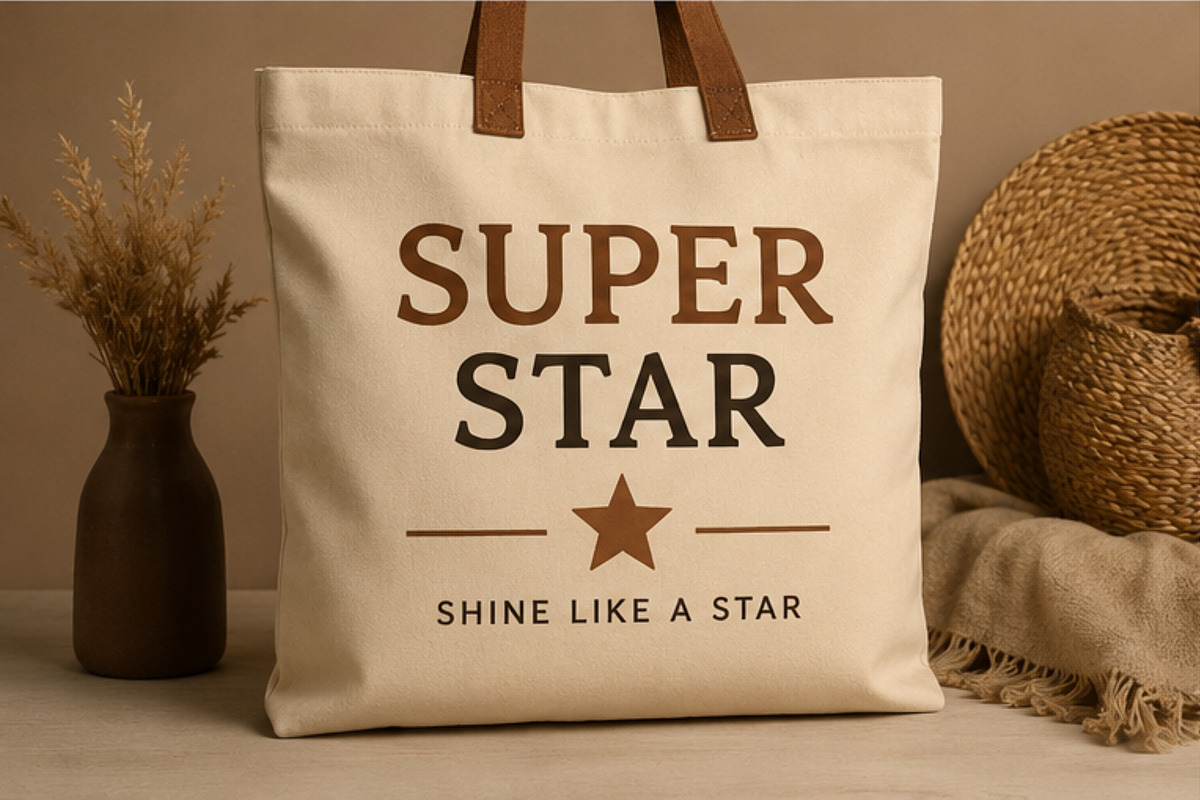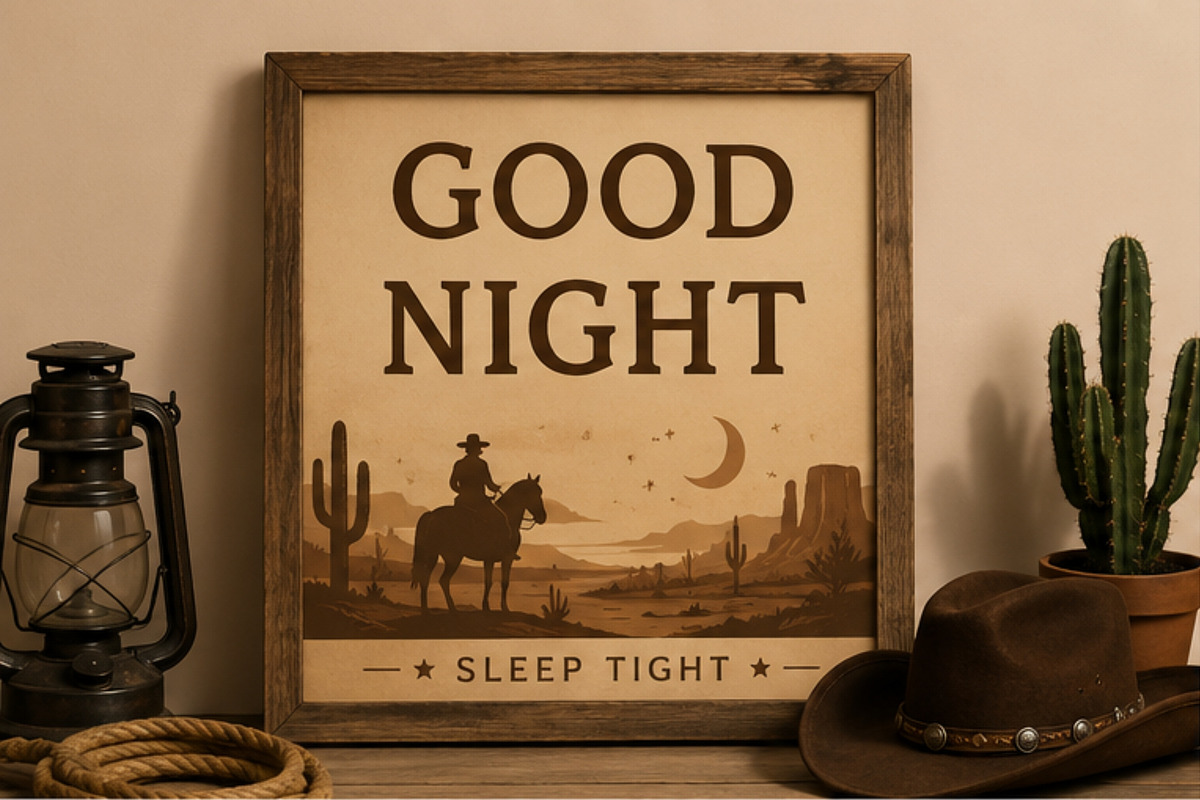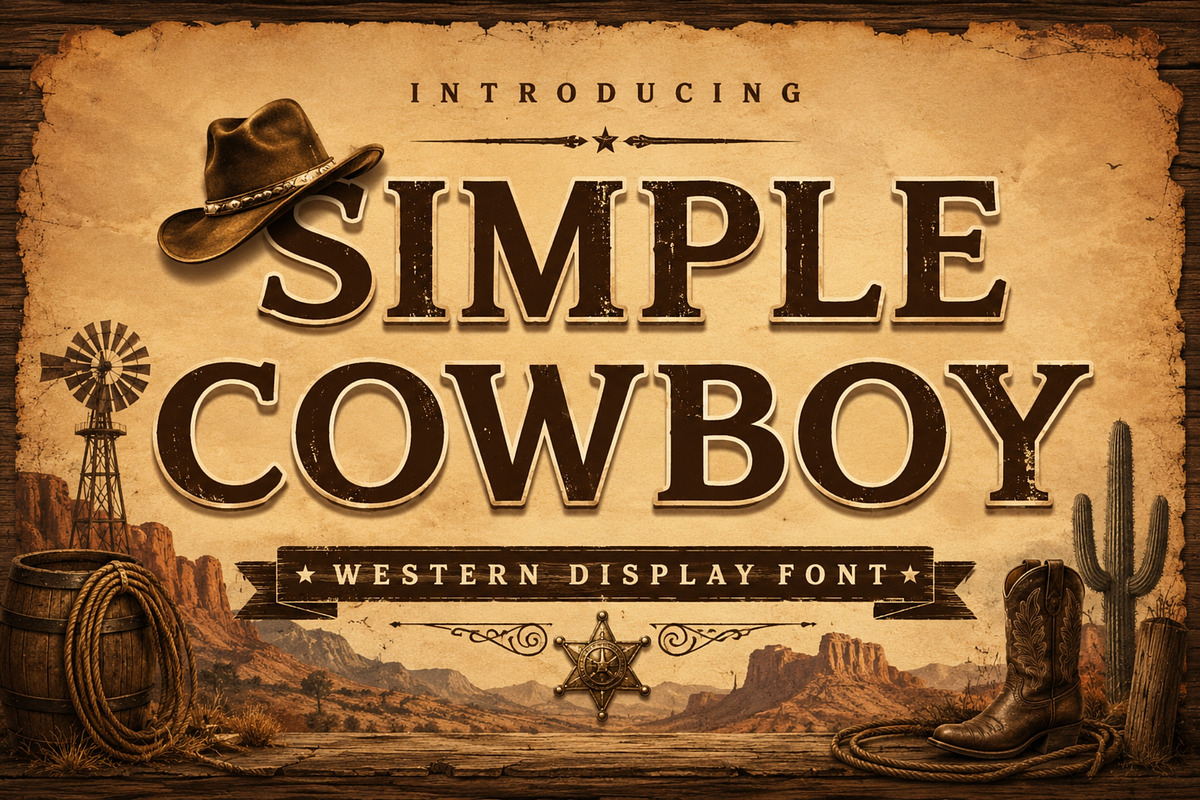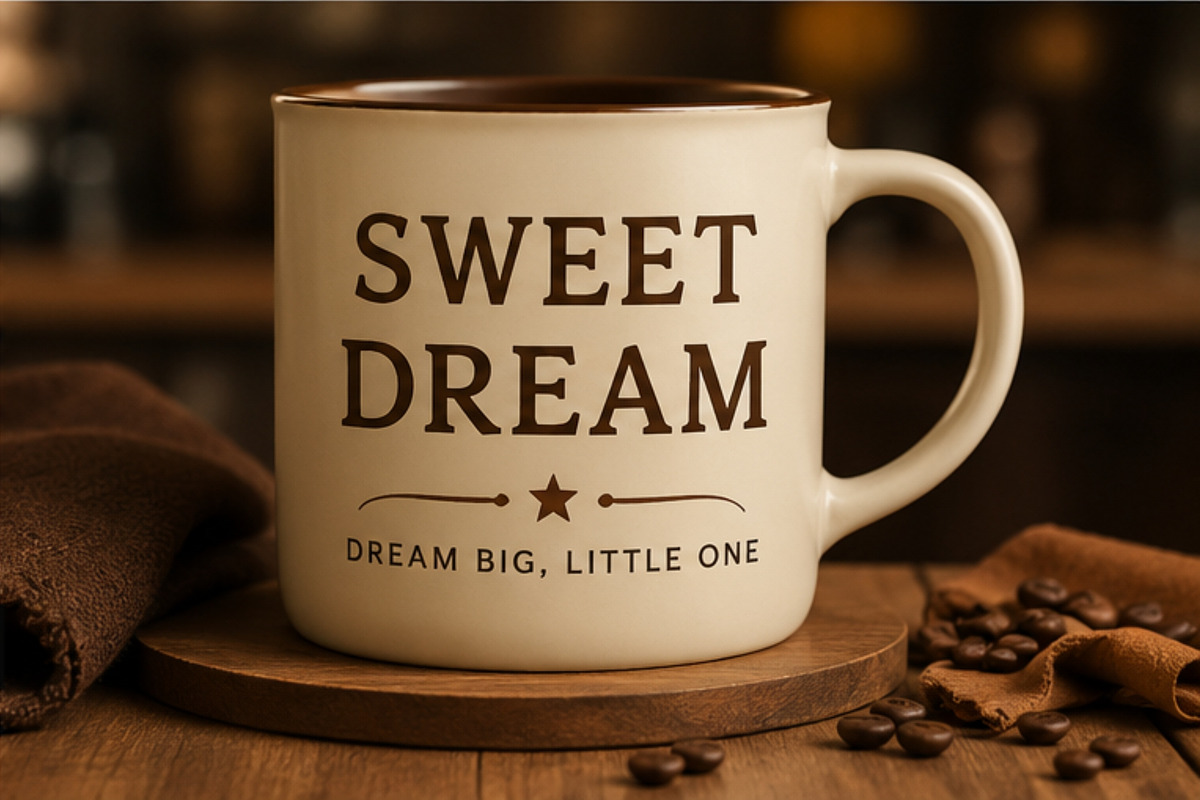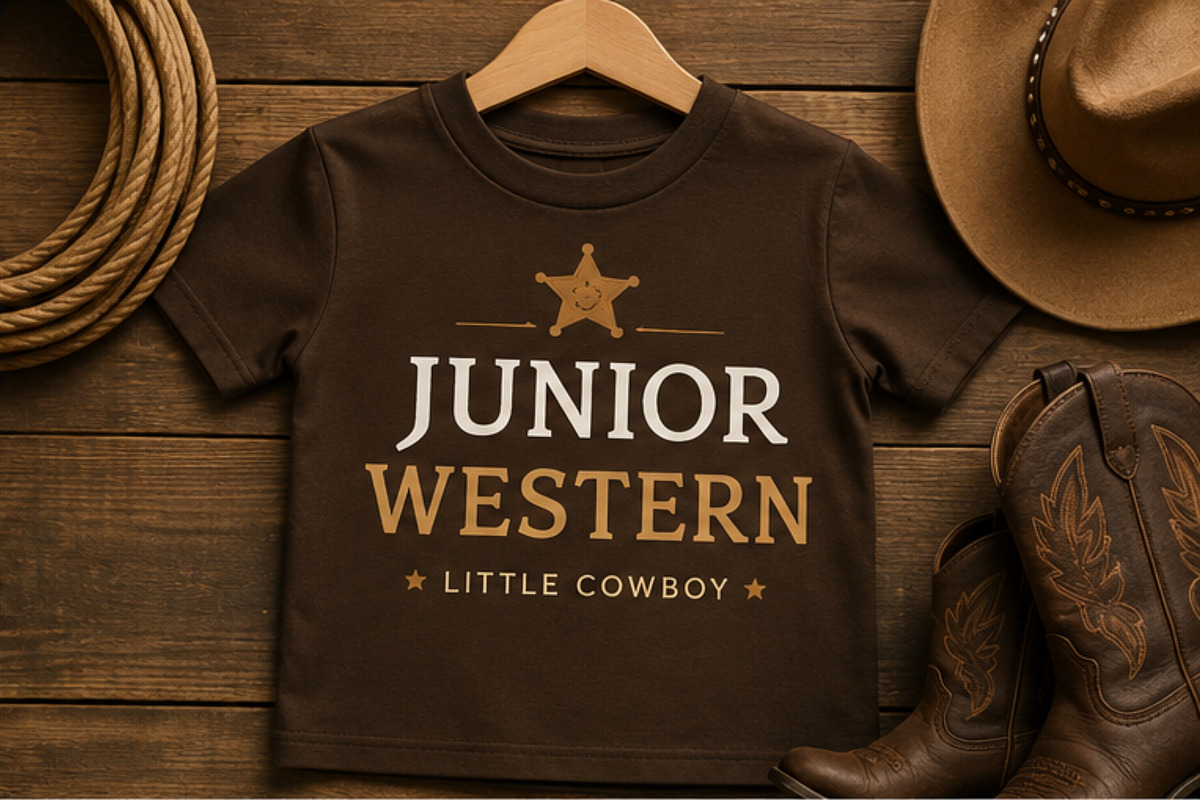
Simple Cowboy
Simple Cowboy is a timeless western display font that captures the charm of the Wild West with a clean and elegant serif style. Designed with classic cowboy typography in mind, it blends vintage character with modern readability, making it ideal for a wide range of creative projects.
Whether you’re creating rustic logos, western apparel, farmhouse signs, country wedding invitations, whiskey labels, rodeo posters, or handmade craft designs, Simple Cowboy delivers an authentic frontier feel with effortless style.
Features: > Uppercase letters > Numerals & punctuation > Multilingual support > Easy to read > Vintage western style > Perfect for print & digital projects